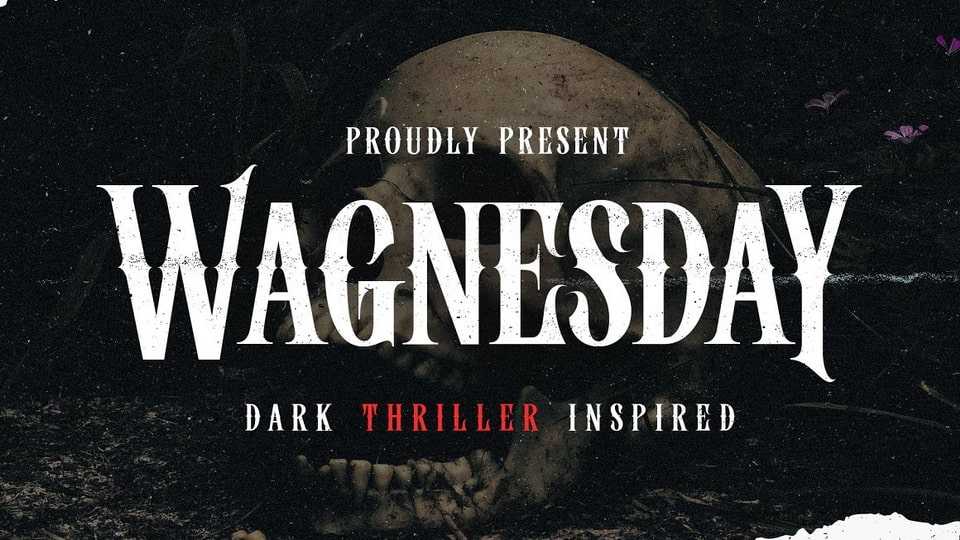
Download Wagnesday font, a thriller-horror styled typeface, inspired by thriller movies and designed with an elegant touch of horror, and thrilling. This all-caps font adds a dark vibe to your designs, making them more attention-grabbing.